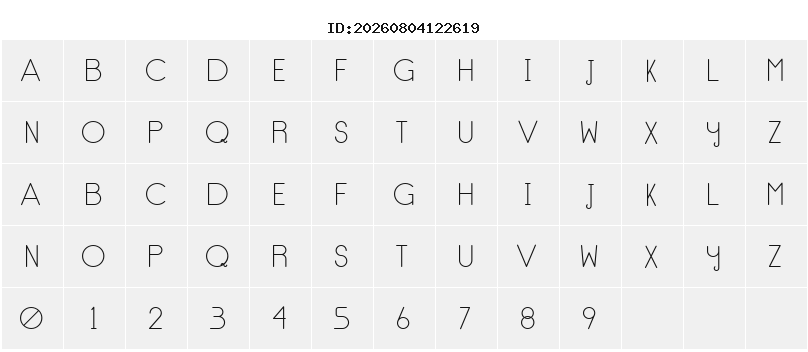
NoType Preview
• Font Name: NoType
• Font ID: NoHypeforMe: NoType: 2009
• Full Font Name: NoType
• PostScript Name: NoType
• Character Count: 224
• Designer: Renato Forster
• Manufacturer: NoHypeforMe
About NoType.ttf
NoType.ttf is a modern, elegant sans-serif font designed for ultimate readability and visual harmony. Perfect for branding, headlines, web design, and print materials.